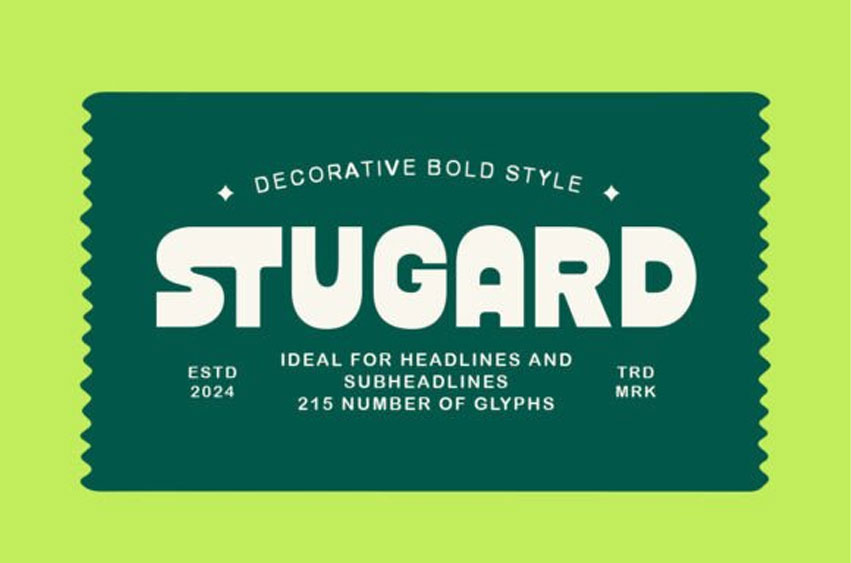
Stugard Font is a bold, reversed sans-serif font. You can use this font for various purposes, especially for trendy modern designs.
It’s suitable for branding, logos, retro designs, and quotes. With stylish ligatures, Stugard helps your designs stand out even more. Additionally, it supports multiple languages.